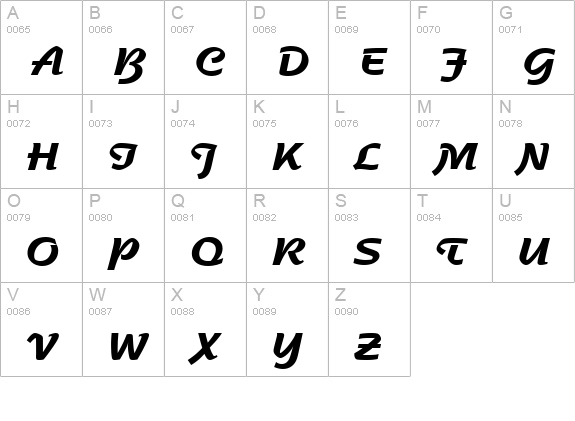
Nadianne Bold is a strong, high-contrast variant in the Nadianne typeface family \xE2\x80\x94 well suited to headlines, attention-grabbing titles, and strong calls-to-action.
Nadianne Bold is a stunning and versatile typeface that exudes elegance and sophistication. With its bold and distinctive letterforms, this font is perfect for creating eye-catching designs that demand attention. Whether you're working on a logo, poster, or branding project, Nadianne Bold will make your text pop and stand out from the crowd. The best part? Nadianne Bold is available for free download at FontsMarket.com, making it accessible to designers and creatives looking to add a touch of luxury to their projects without breaking the bank. Don't miss out on the opportunity to elevate your designs with this beautiful and timeless font. Download Nadianne Bold today and unleash your creativity!